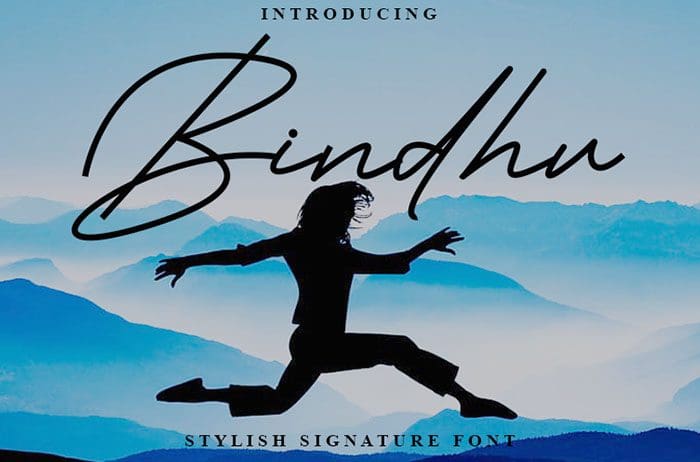
Free Bindhu Script Font
Bindhu Script Font
Free Bindhu is fancy flowing script font with an irregular baseline. It will add a luxurious touch to any crafting project! Designed this font by Inermedia Studio. You can also search more freeĀ Script Fonts.